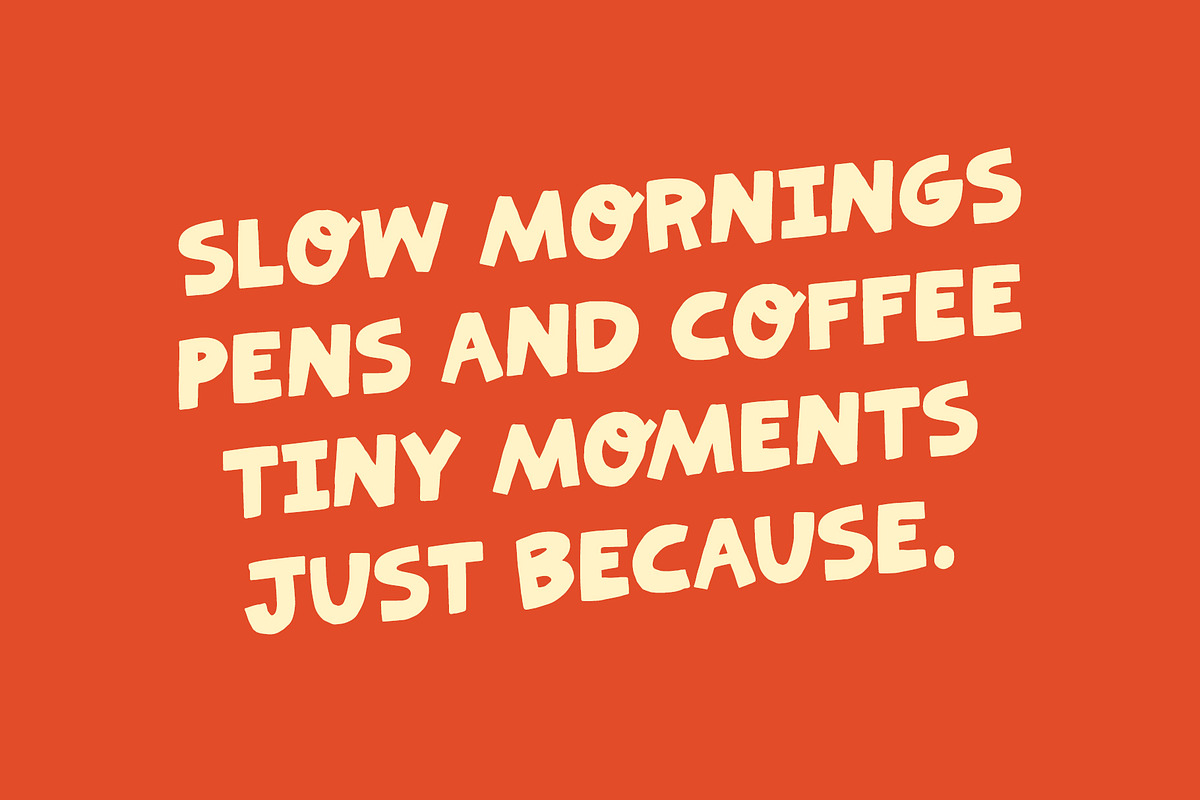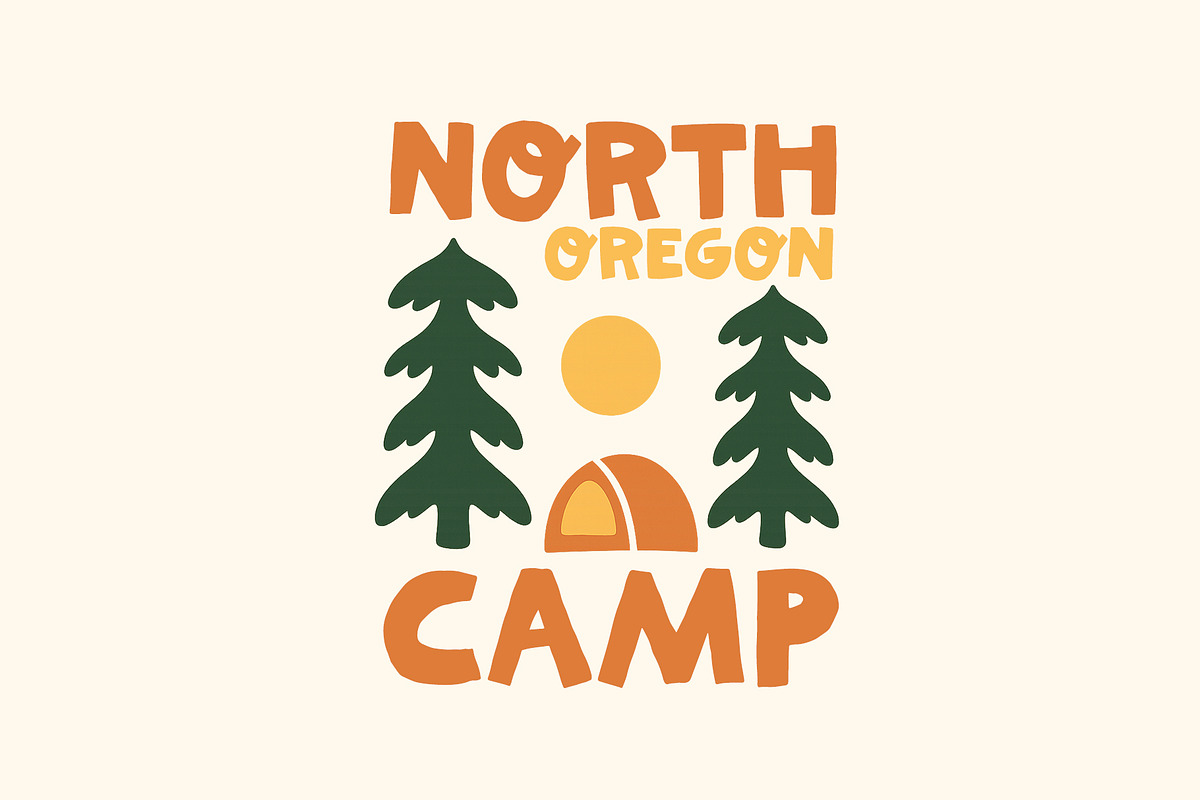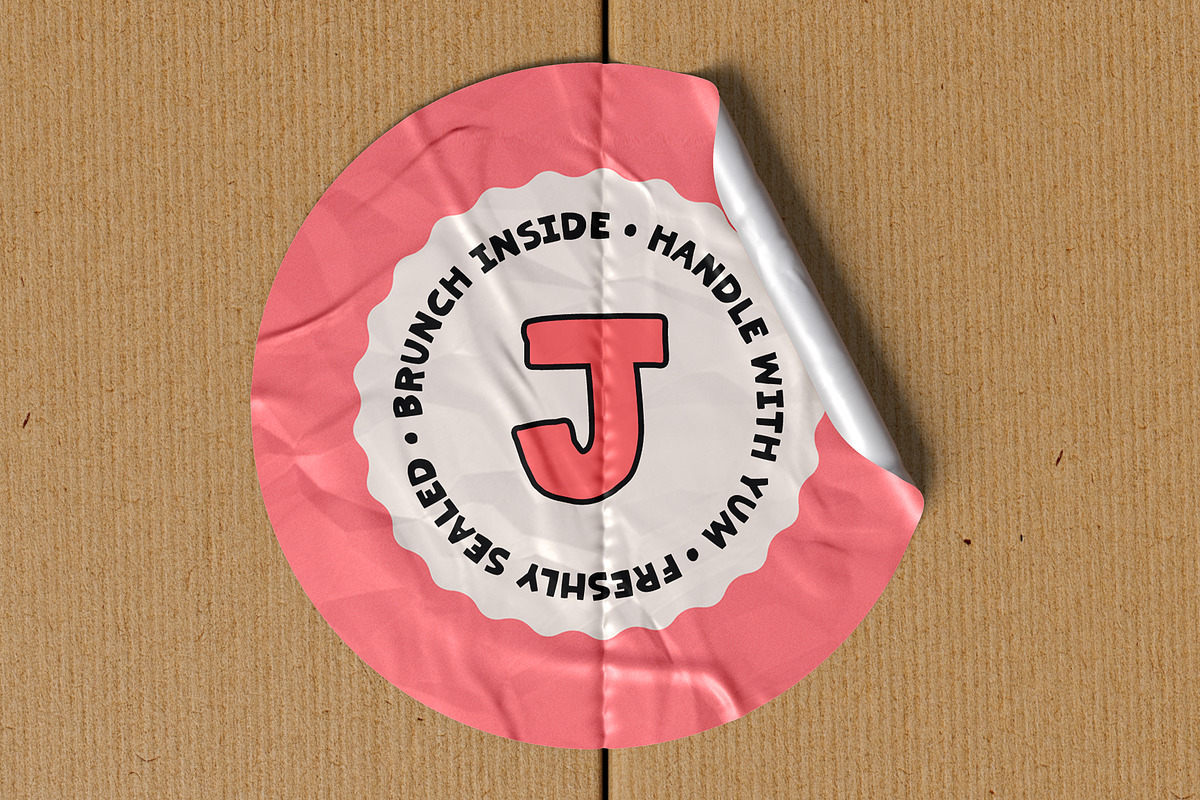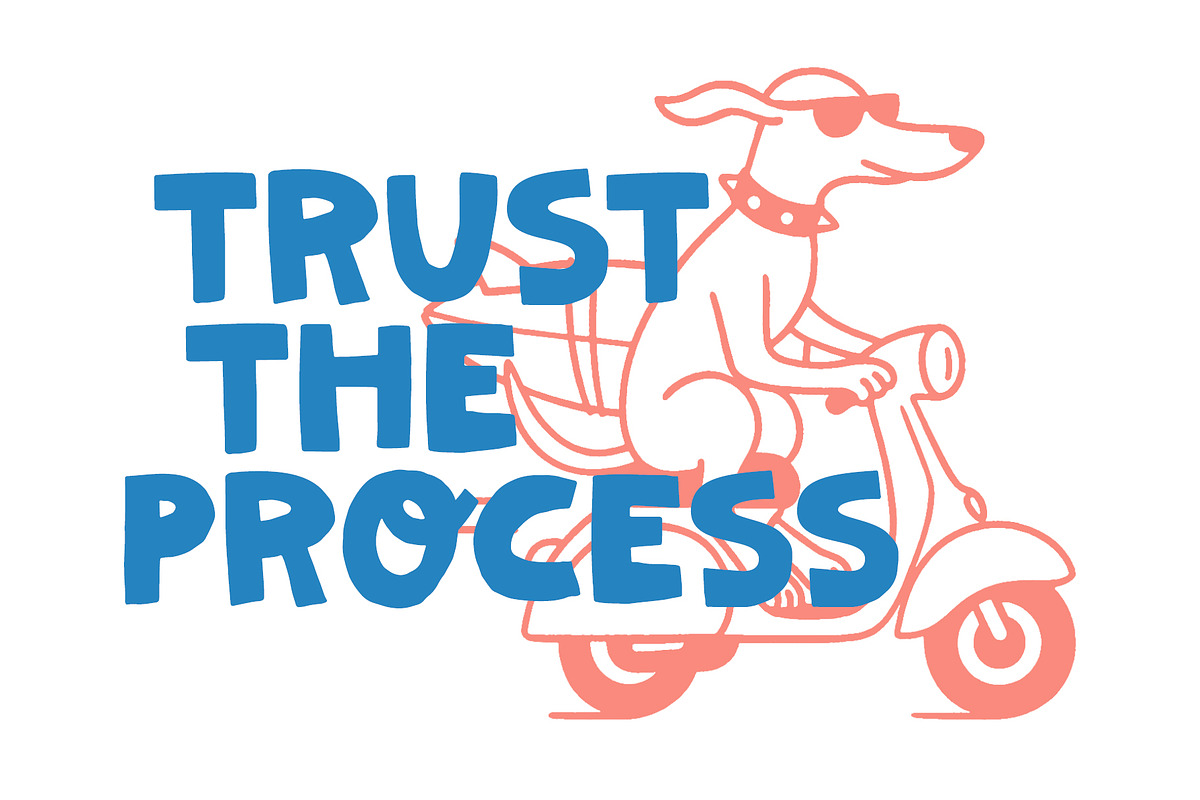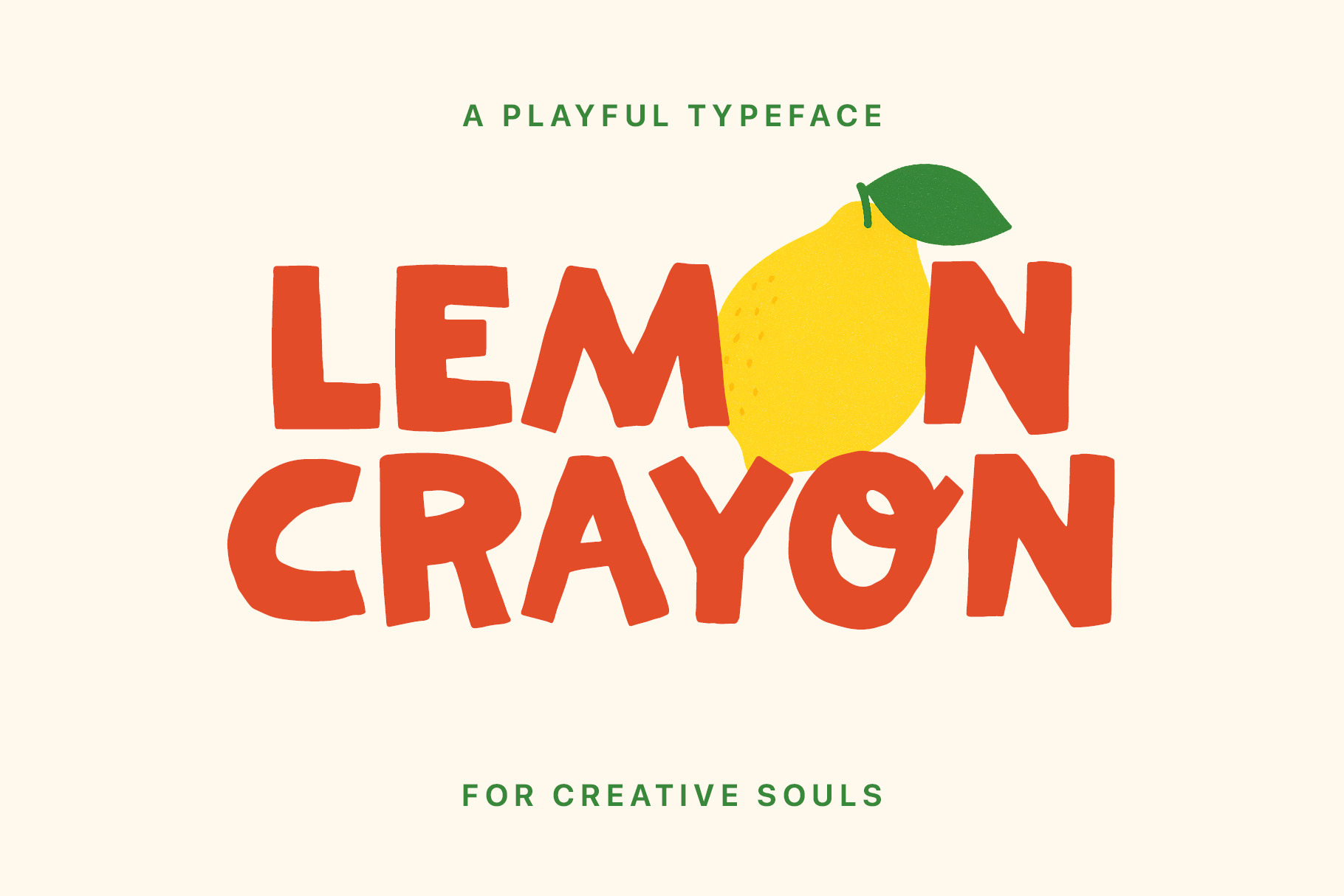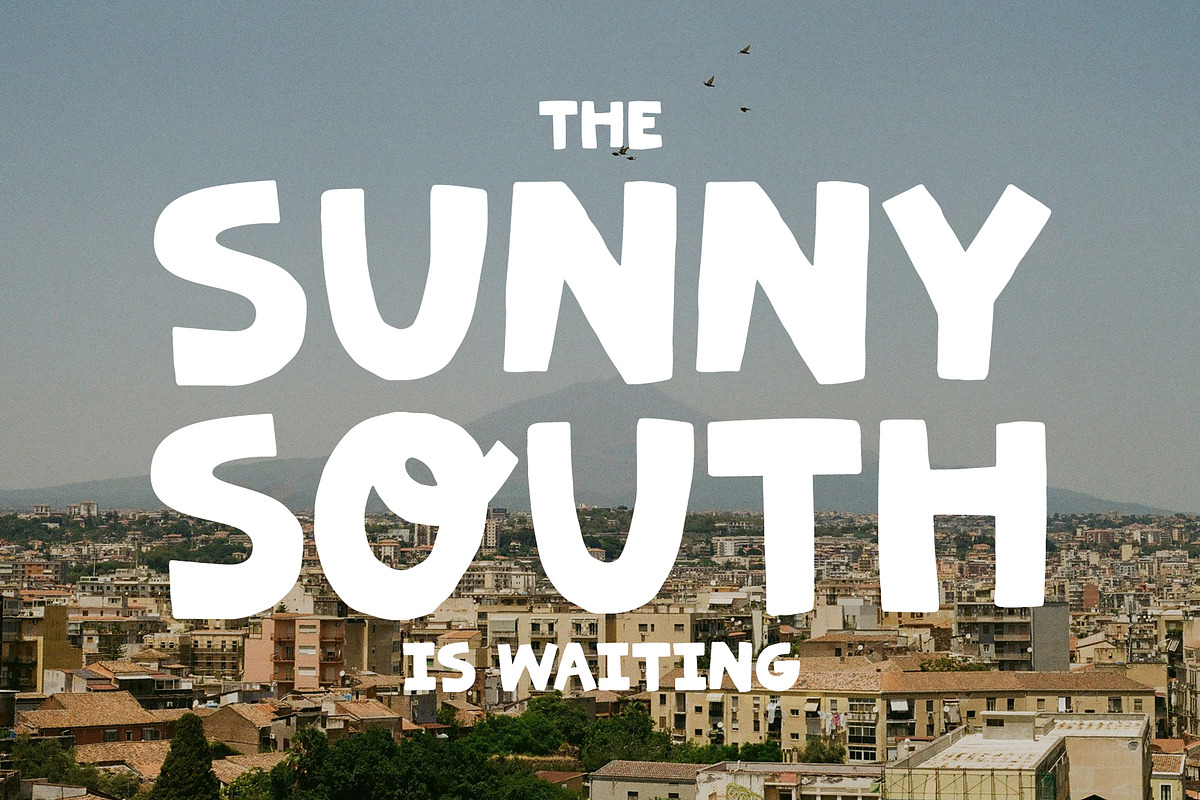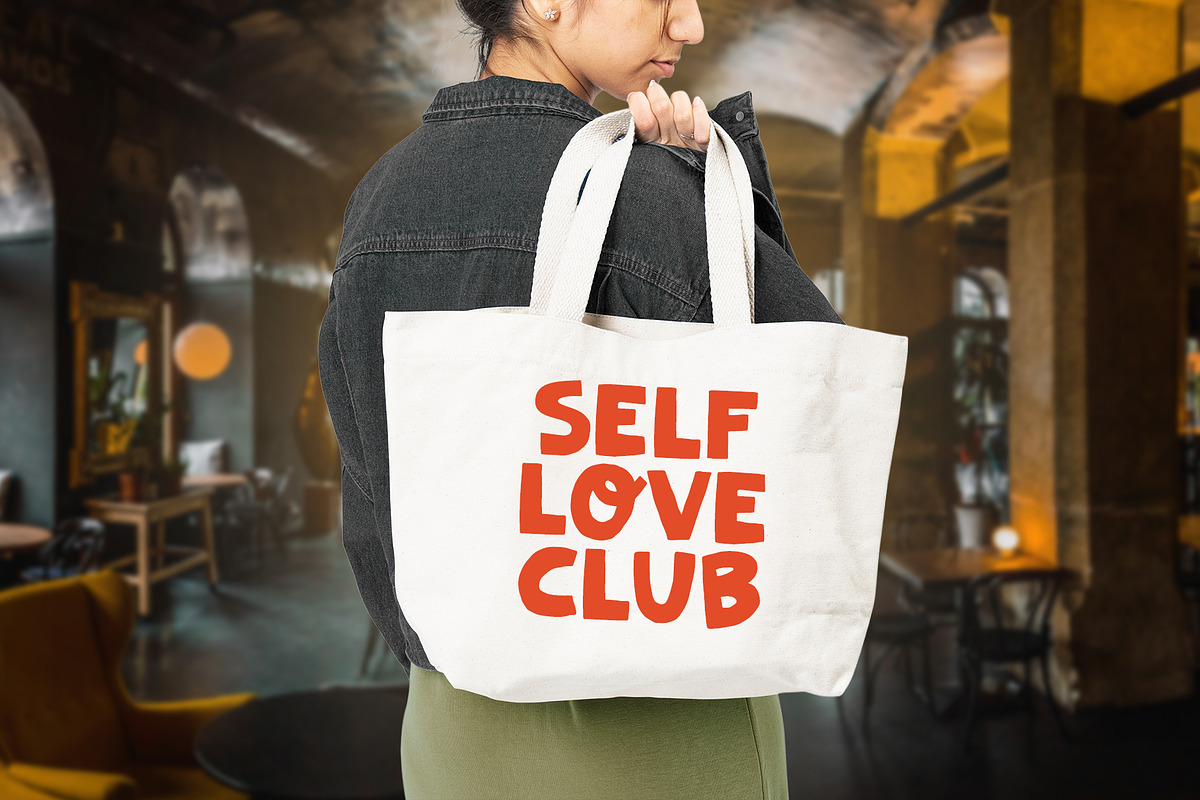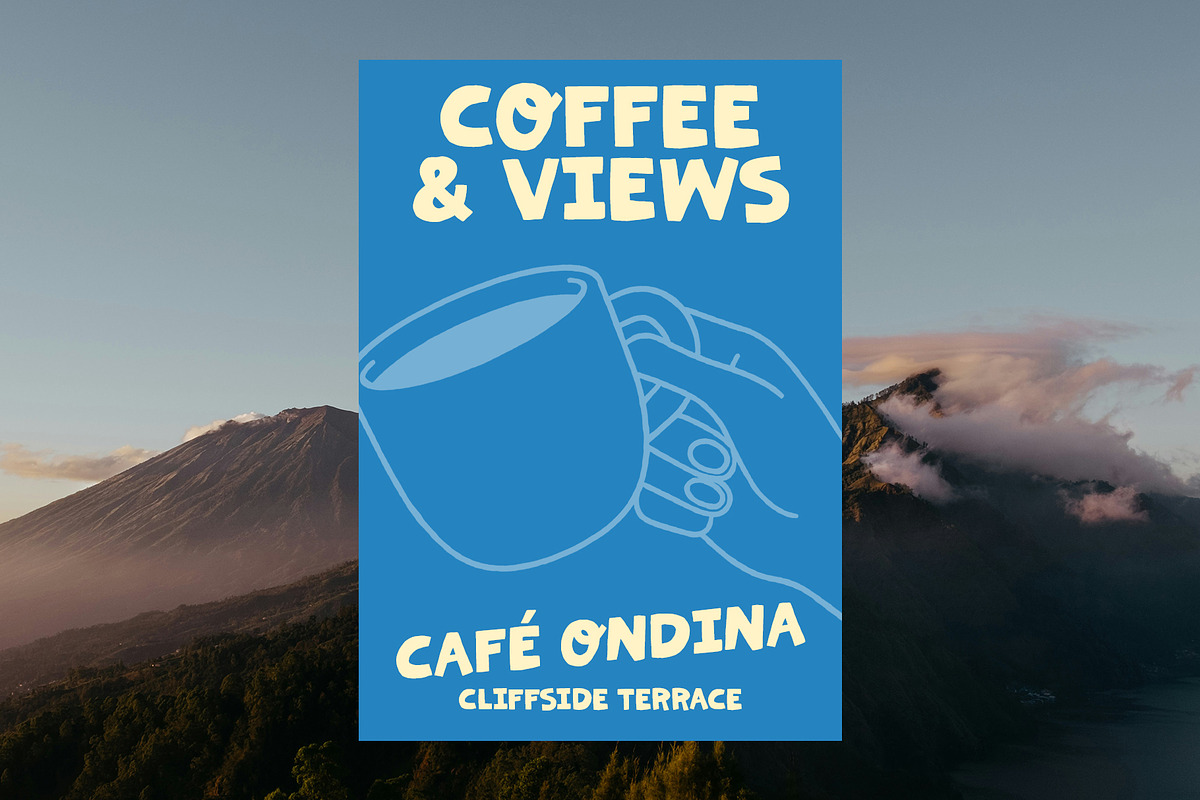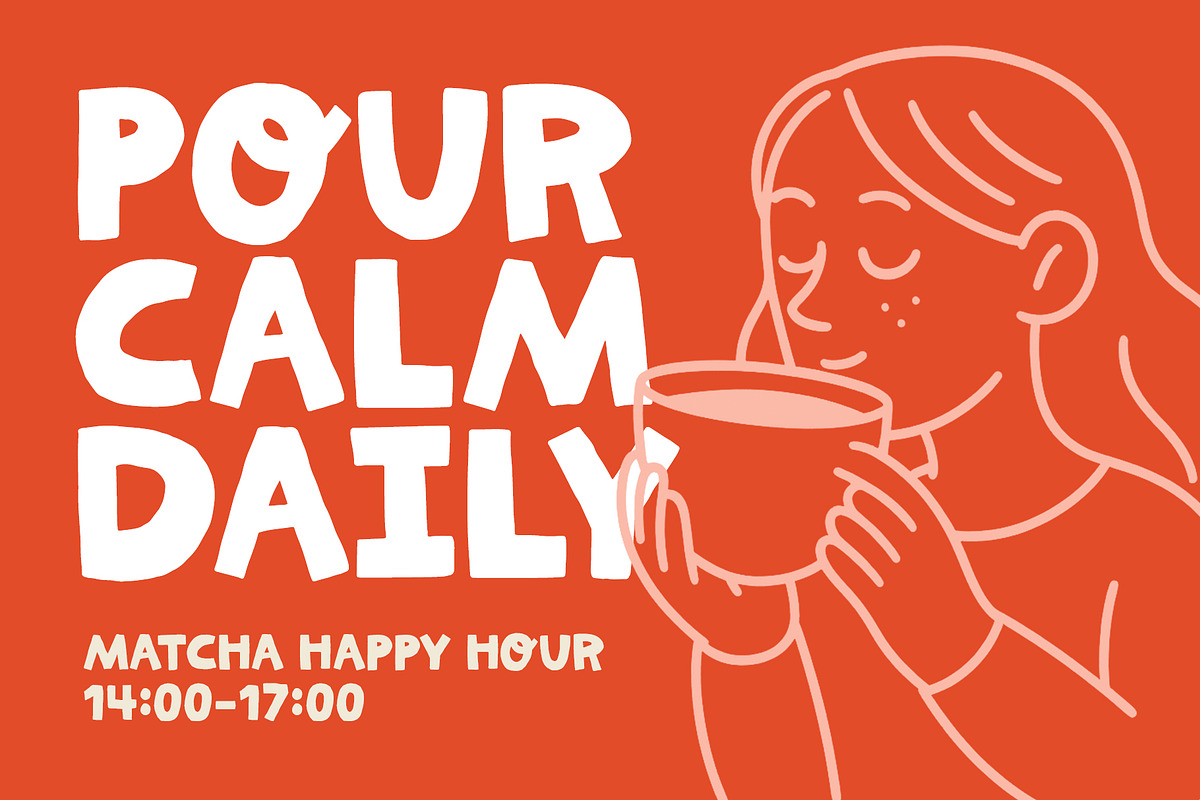
Lemon Crayon A Playful Typeface
Say hello to Lemon Crayon - a bold, chunky, hand-drawn typeface full of charm and cheerful energy. Perfect for branding, packaging, kids' products, greeting cards, and anything that needs a fun, handmade feel. Each letter looks like it was drawn with love.
This font is ideal for designers looking to add a touch of personality and whimsy to their projects. Whether you’re making a playful logo, colorful label, or quirky social media post Lemon Crayon brings the fun.